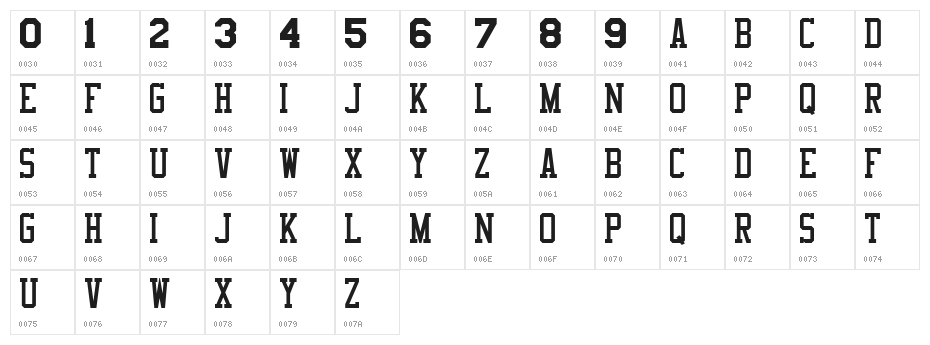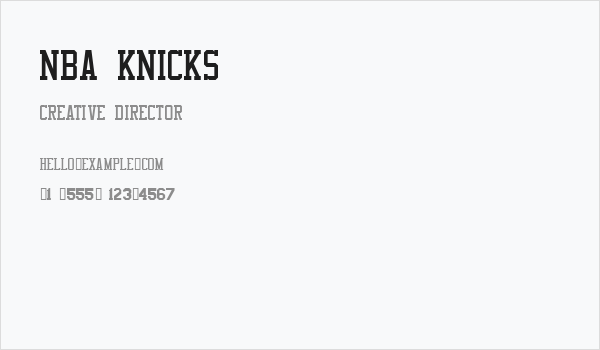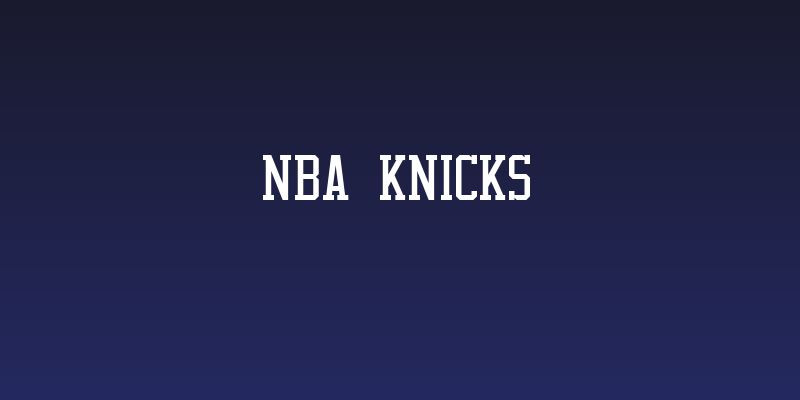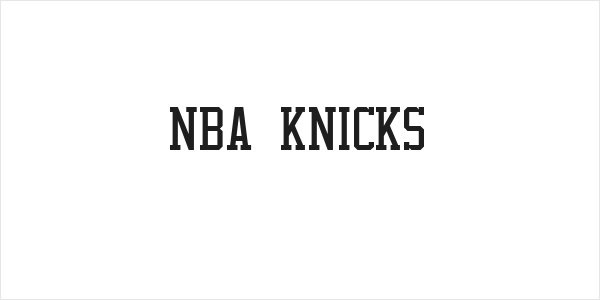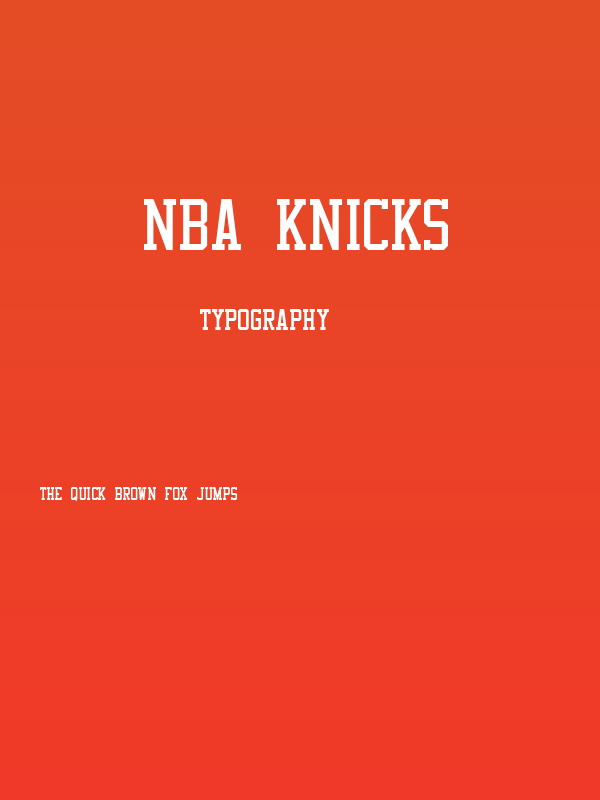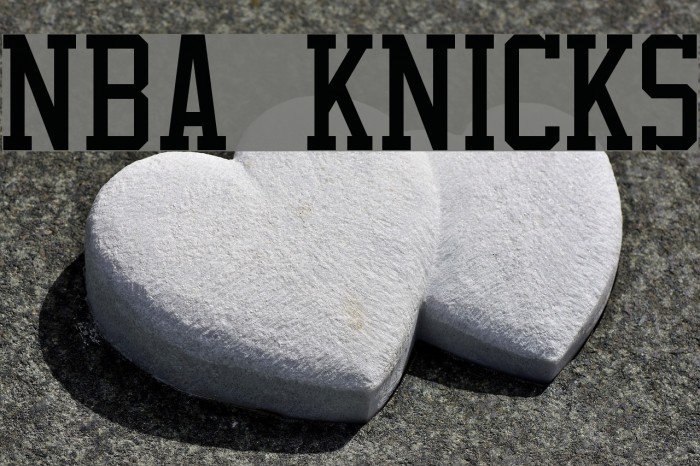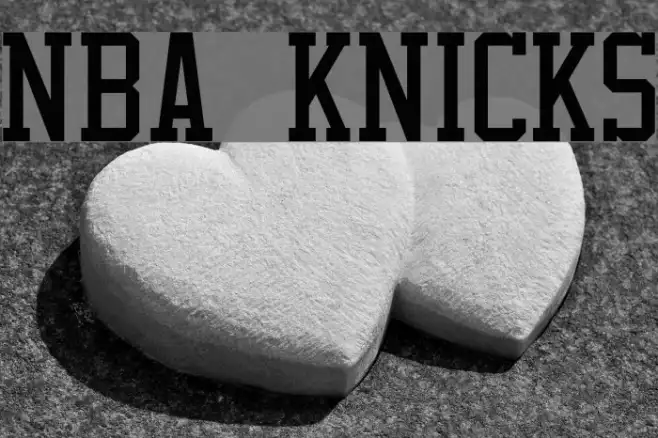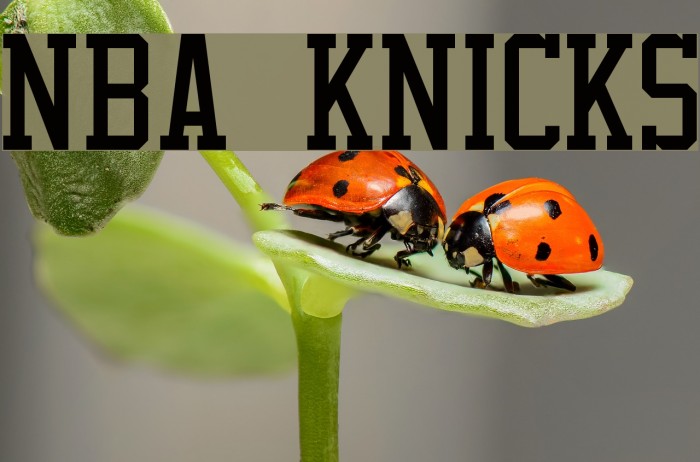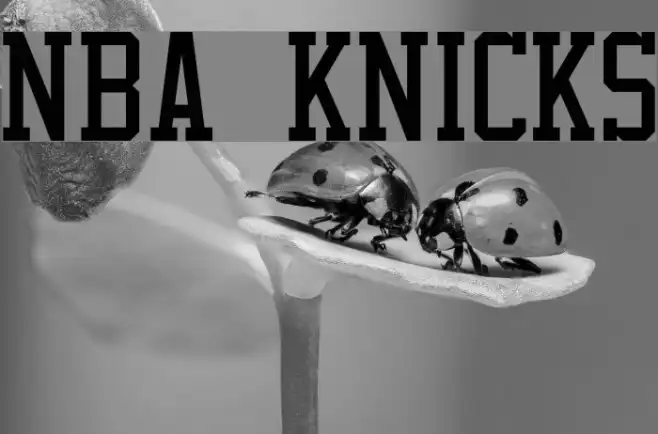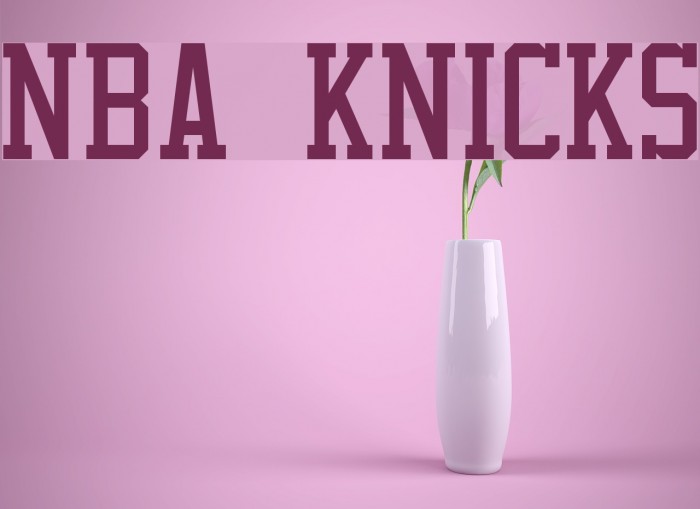
NBA Knicks Font
NBA Knicks Description
This font features a bold and robust design, characterized by thick, block-like letters with a strong presence. The uppercase letters are uniform in height, with sharp angles and clean lines that convey a sense of strength and stability. The numbers follow a similar style, maintaining the bold and impactful appearance. The font is highly legible, making it suitable for attention-grabbing headlines or titles. Its geometric structure and consistent weight throughout the characters give it a modern and professional look, ideal for sports-related themes or branding.
| Proposed Projects | Ideal for sports branding, team logos, posters, and merchandise designs. |